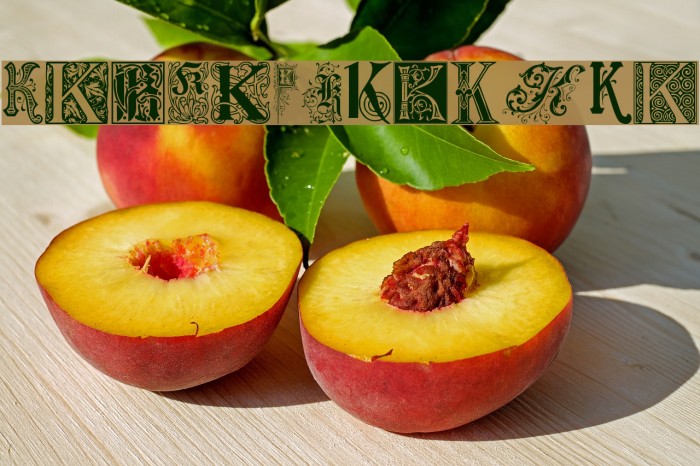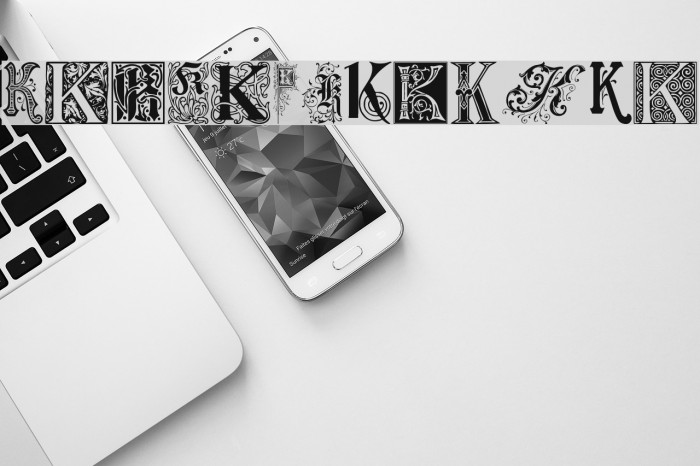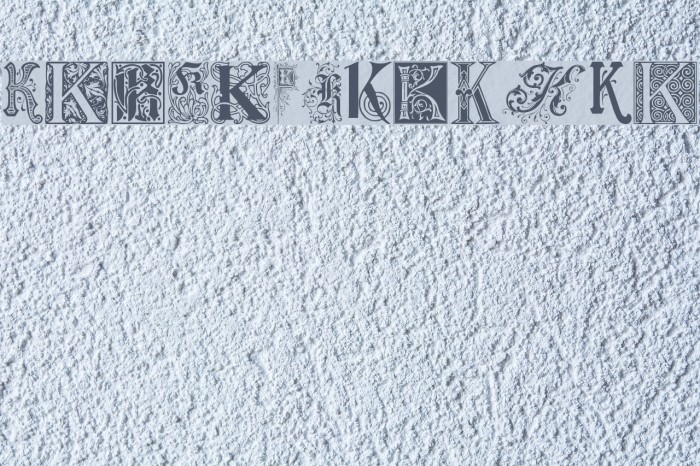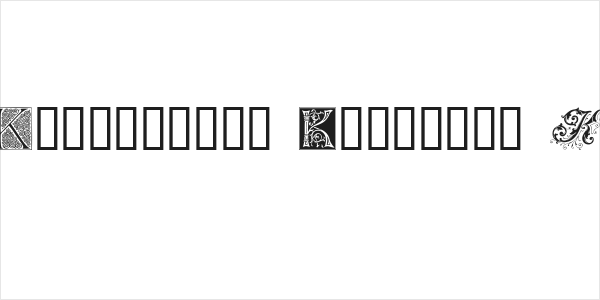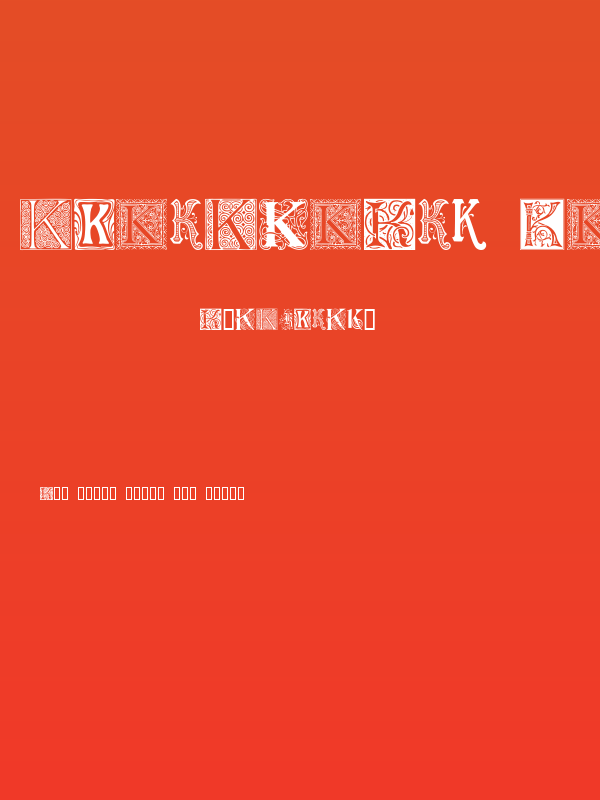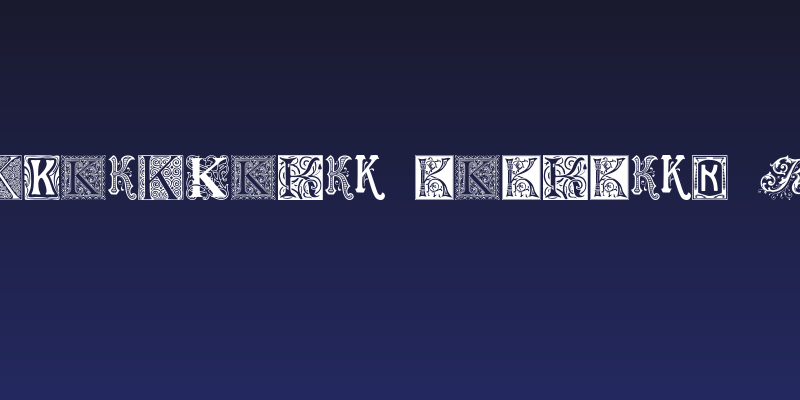
Ornamental Initials K Font
Ornamental Initials K Description
This font is a highly decorative and ornamental typeface, characterized by intricate designs and embellishments within each letter. The uppercase 'K' is presented in various styles, each with unique flourishes and patterns that give it a distinct, artistic appearance. The font is reminiscent of illuminated manuscripts or vintage book initials, where each letter is a work of art. The detailed patterns within the letters include floral motifs, geometric shapes, and swirling lines, making it ideal for decorative purposes. The font does not include lowercase letters or numbers, focusing solely on the uppercase 'K' with different ornate designs.
| Use Case | Logos, Decorative elements |
| Proposed Projects | Ideal for use in decorative projects such as invitations, certificates, or as initials in artistic compositions. |